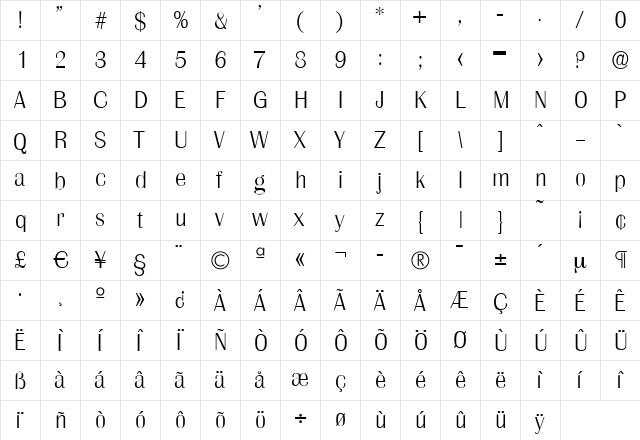
JesseBecker-ExtraLight Regular
Design Context for JesseBecker-ExtraLight Typeface
JesseBecker-ExtraLight offers clean, dependable letterforms without strong stylistic allegiance, making it a practical choice for designers who need flexibility. Its slender proportions lend an understated elegance to any composition.